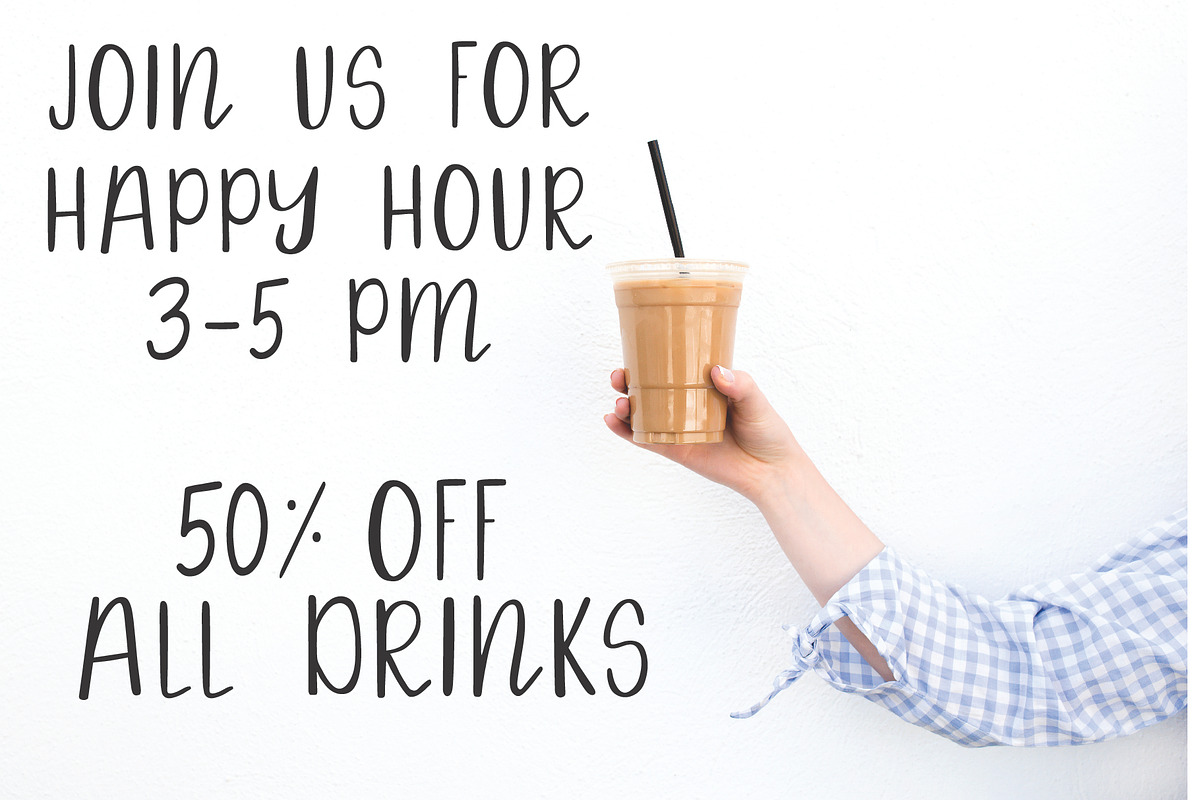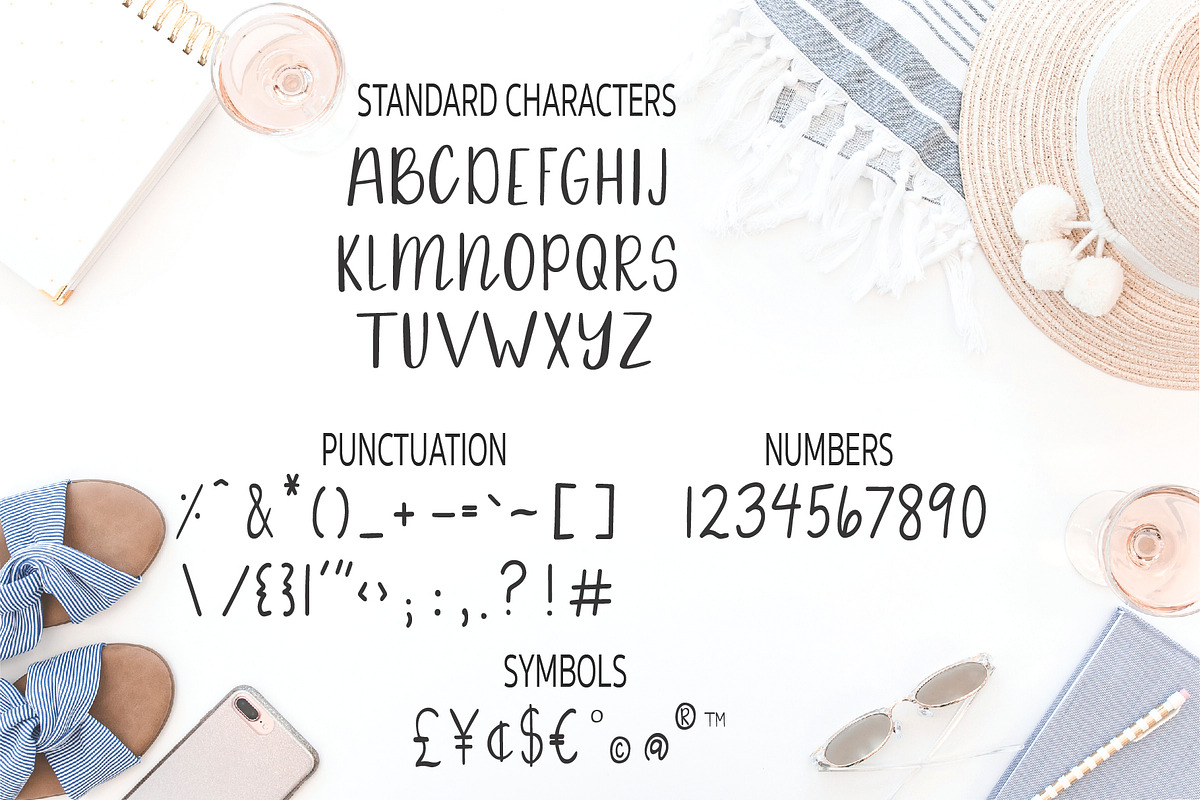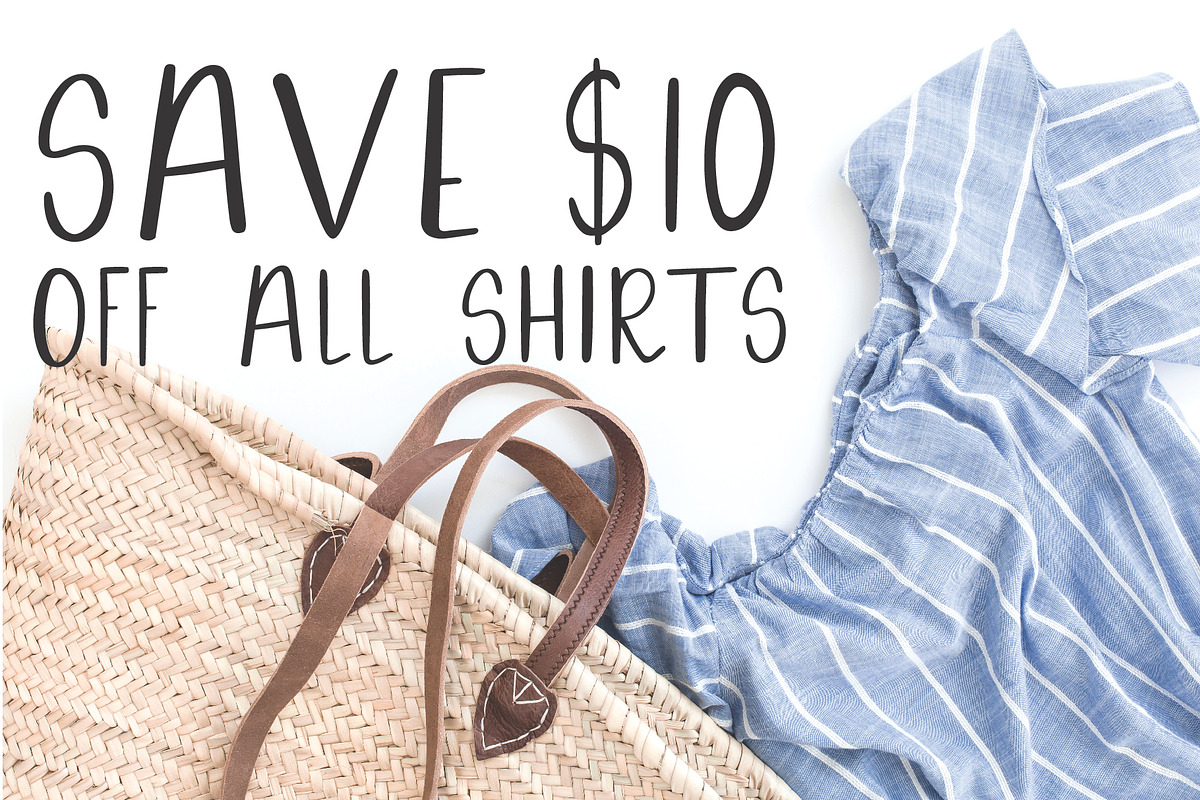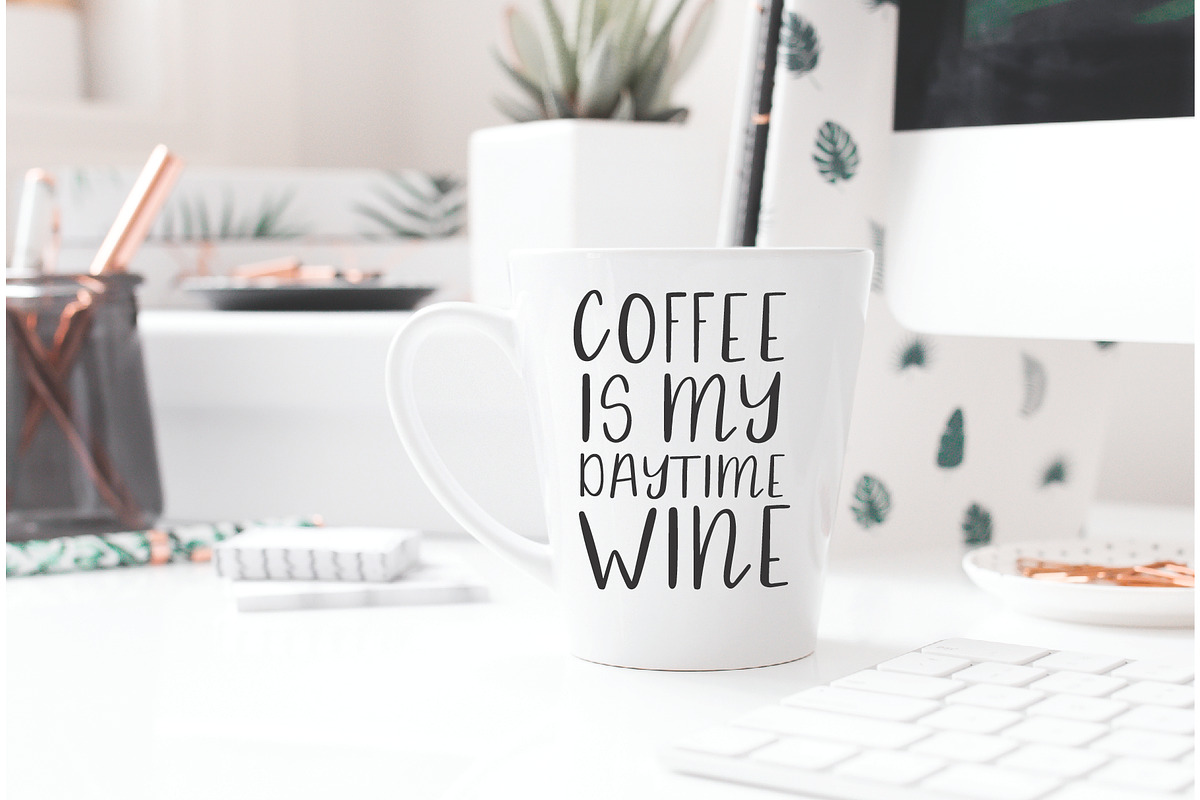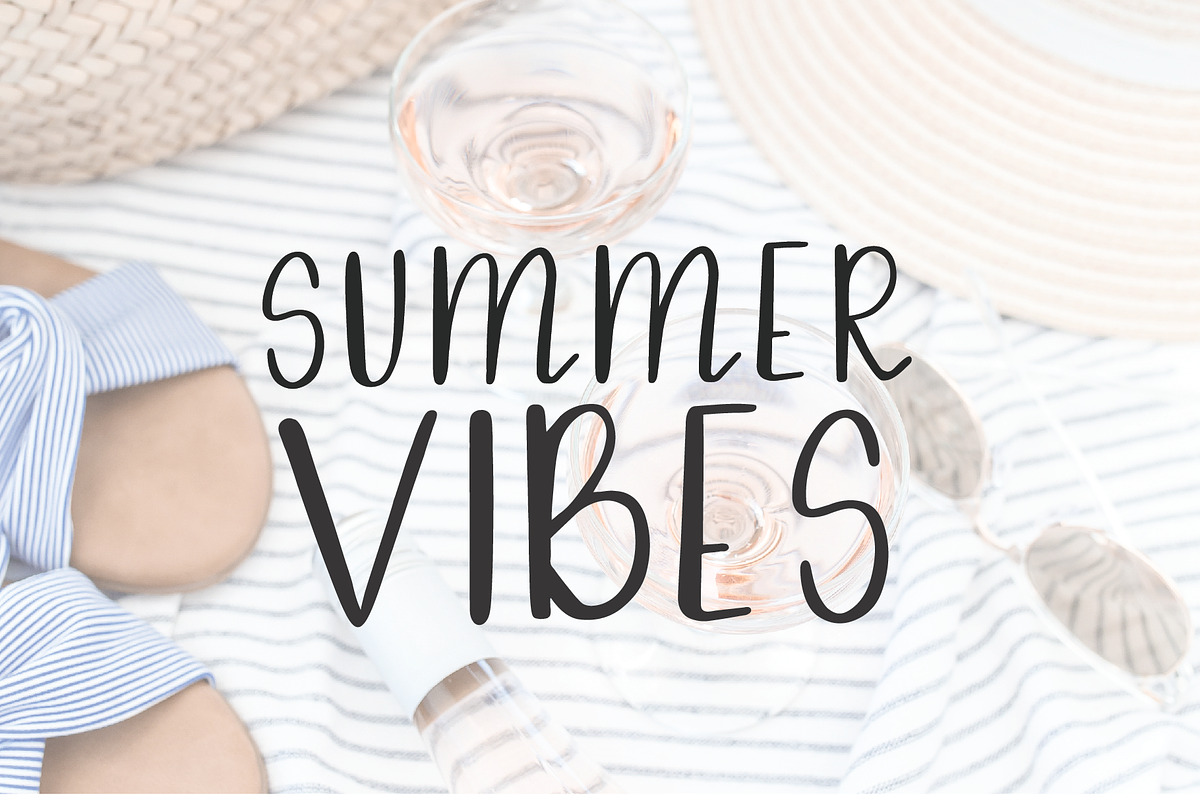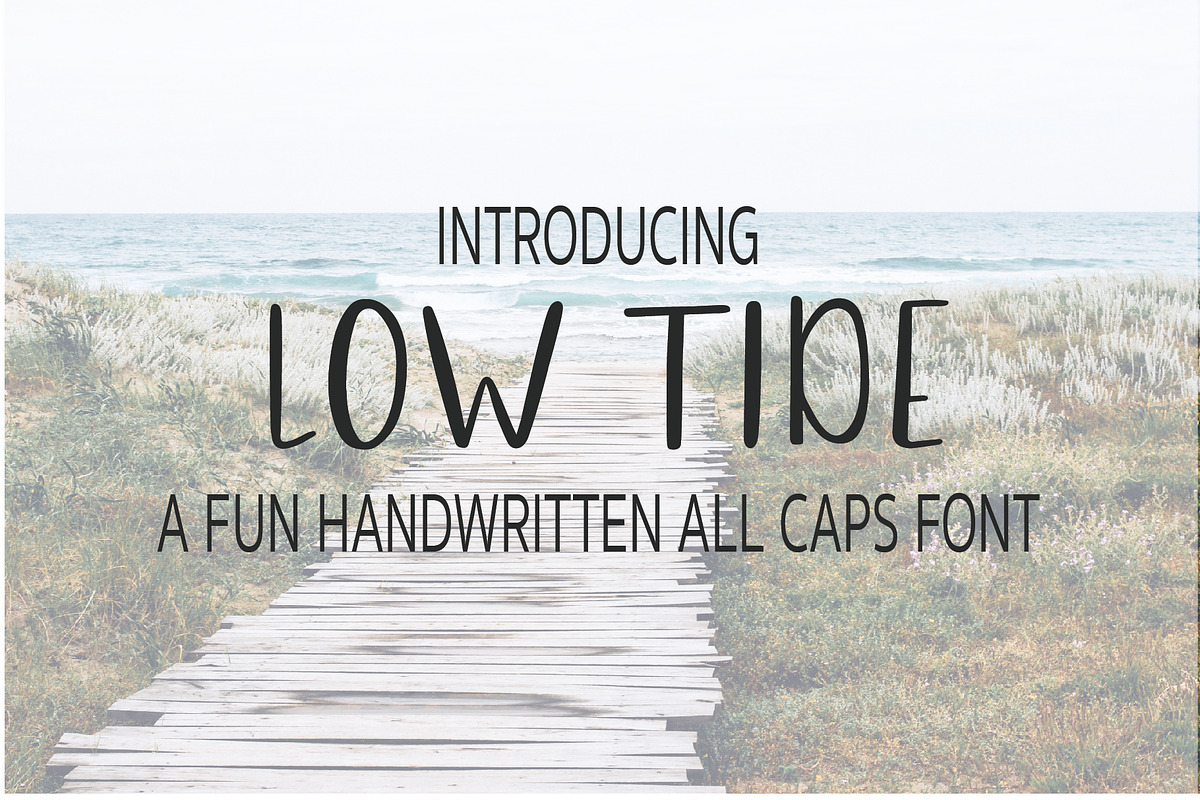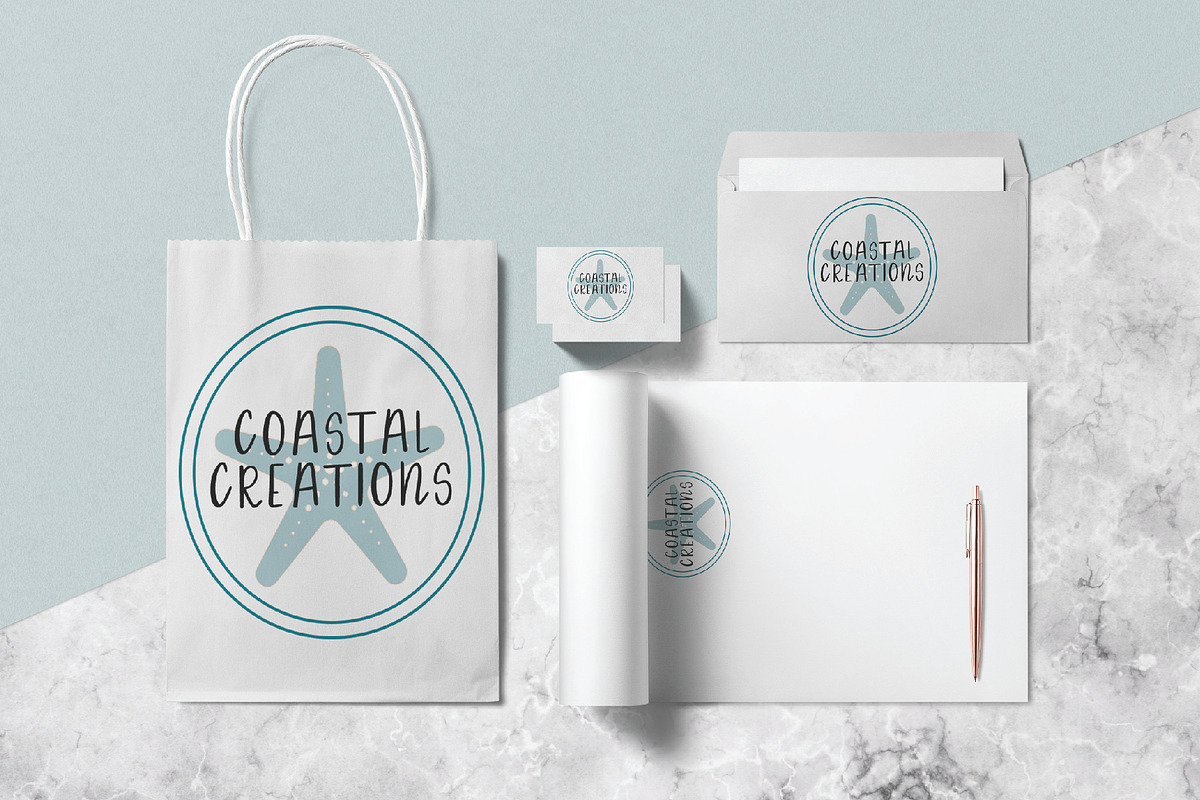
Low Tide - Handwritten Font
Introducing Low Tide, a fun handwritten all caps font. This font is casual and fun; perfect for flyers, logos, branding design, blog headers, quotes, labels, advertisements, vinyl cut files, or any design project.
This font contains standard characters (all caps), numbers, punctuation and symbols. Please refer to the last photo for full font set.